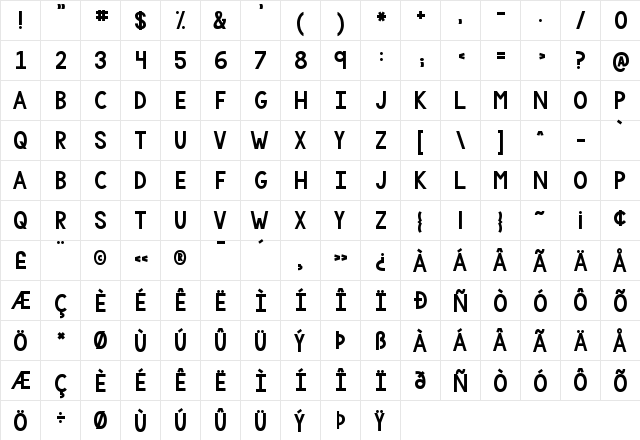
KG One More Light Regular
| Foundry | Kimberly Geswein |
| Designer | Kimberly Geswein |
Design Context for KG One More Light Typeface
KG One More Light is a composed and adaptable typeface that performs quietly and consistently across a wide range of design contexts. Its slender proportions lend an understated elegance to any composition.